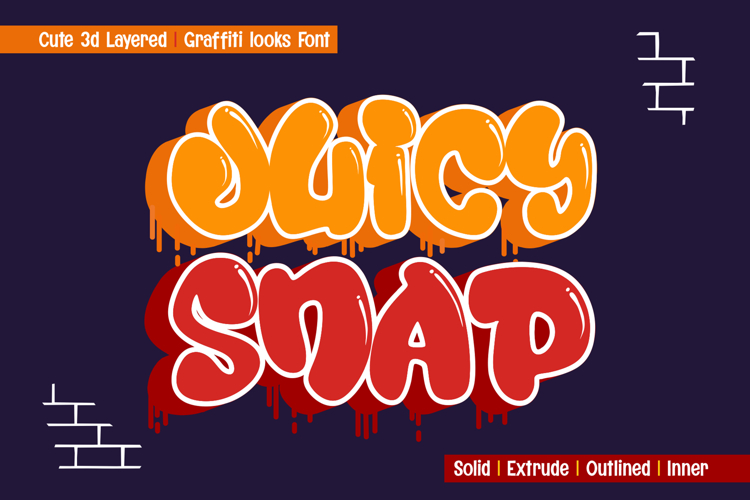
Juicy Snap - Chubby Throw-Up 3d Layered Graffiti Font
Juicy Snap is a bold, playful, layered graffiti font that adds a fun, vibrant twist to any design. With its bubbly, street-inspired letterforms and multiple layers, it offers flexibility and depth, perfect for projects that need a lively, eye-catching edge.
✨ Layered for Impact: Featuring layered styles, Juicy Snap allows for creative customization, giving your designs a multi-dimensional look. The cute, graffiti aesthetic adds charm and personality, making it perfect for posters, murals, and creative branding.
🎨 Urban Playfulness: This font is a great choice for those looking to combine urban street art vibes with a playful, youthful energy. Ideal for packaging, events, or children's projects, Juicy Snap adds a fresh and dynamic flair to your visual creations.
Make a bold statement with Juicy Snap, and bring your designs to life with its cute, layered graffiti style.